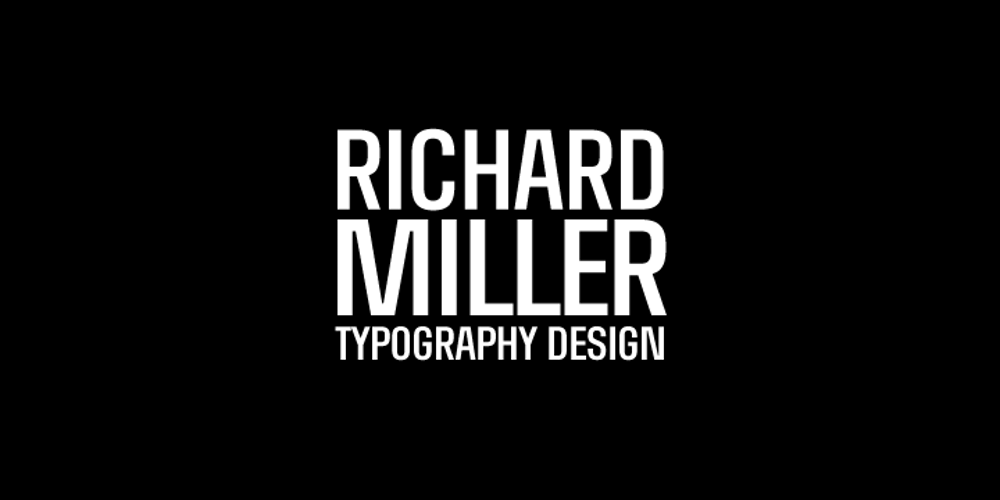
Richard Miller Font Family was designed by Richard Miller and published by Miller Type Foundry. Richard Miller contains 4 styles and family package options. Richard Miller started out as just a logo for a website/business card. It is a modular sans that works well in both print and web design.